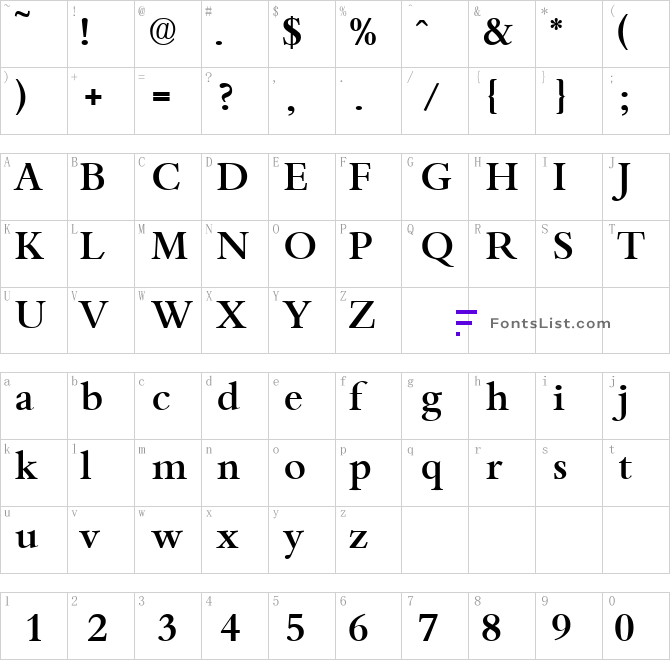
- Font Name:Bamberg-Medium
- Subfamily:B & P Graphics Ltd.:Bamberg-Medium
- Full Name:Bamberg-Medium
- PostScript:Bamberg-Medium
Bamberg-Medium.ttf is a very beautiful artistic font, Bamberg-Medium.ttf is widely used in the design and printing of various books and pictures,Bamberg-Medium.ttf has a strong visual impact,Bamberg-Medium.ttf is a commonly used font in newspapers, magazines and books, and is used in posters, e-commerce Poster design, store design, logo design, font design and other fields.Bamberg-Medium.